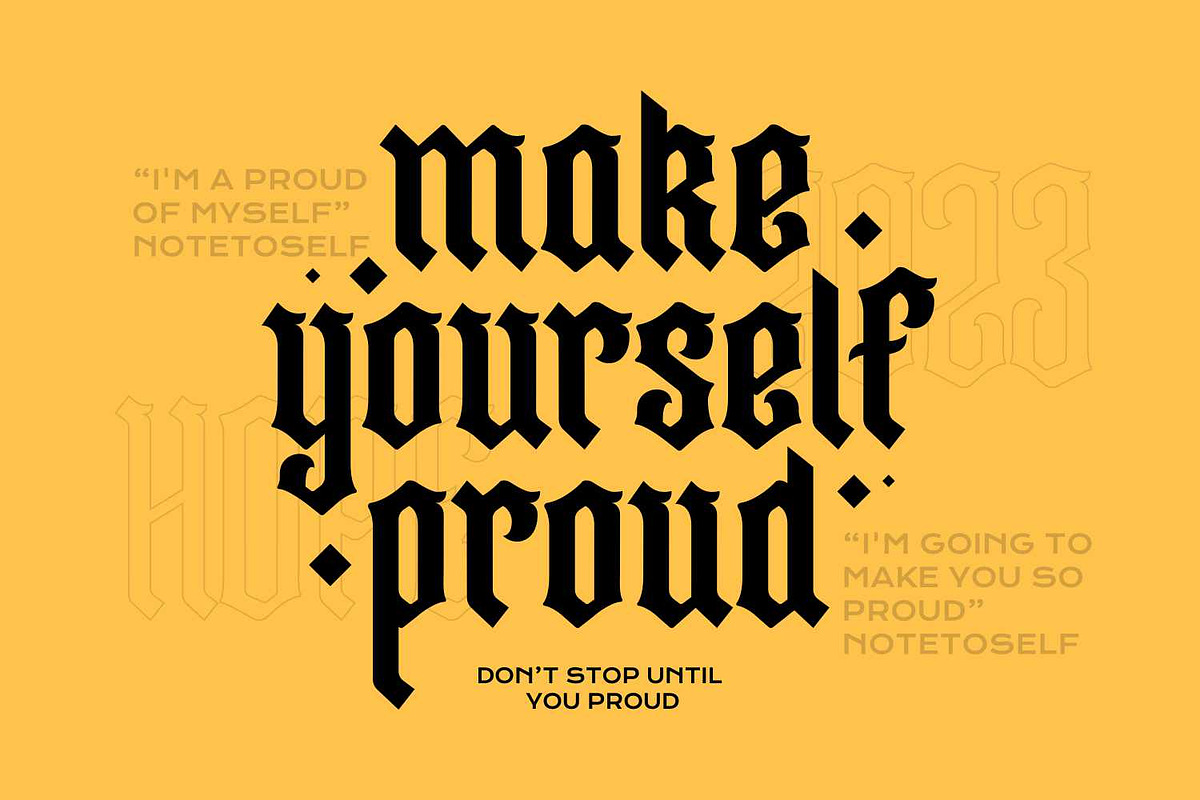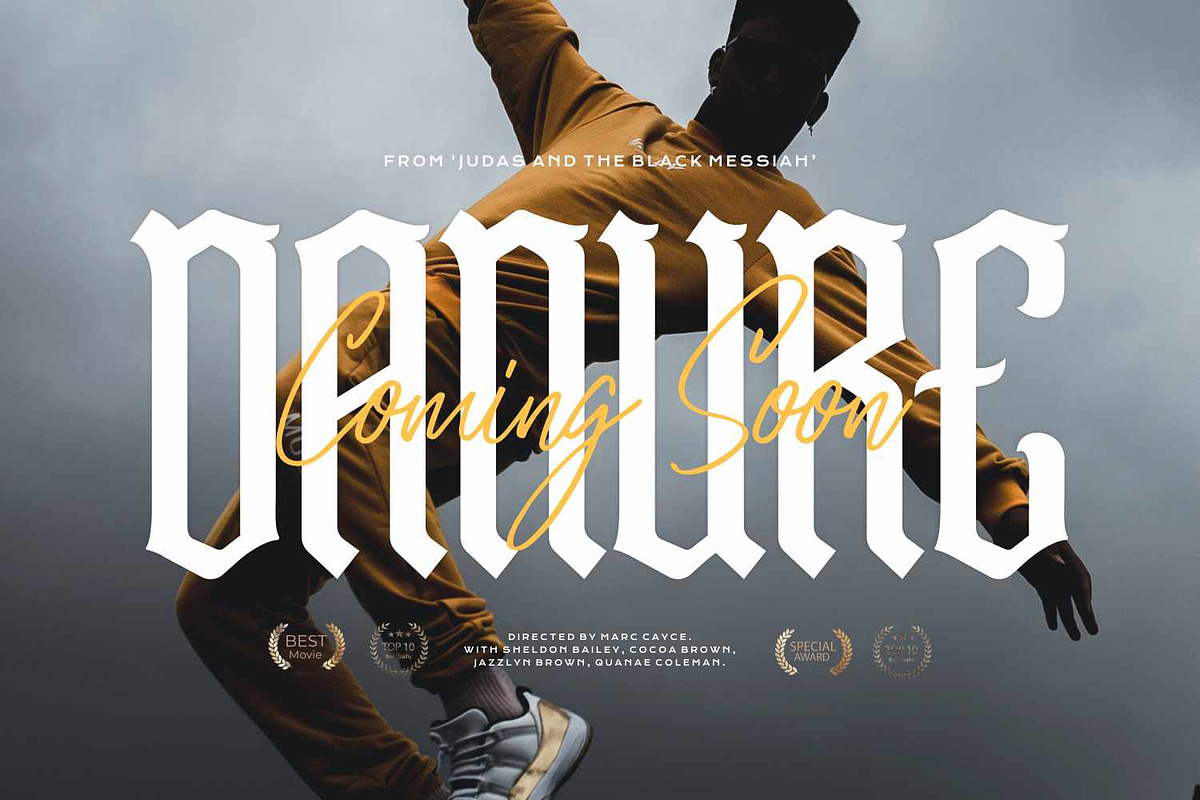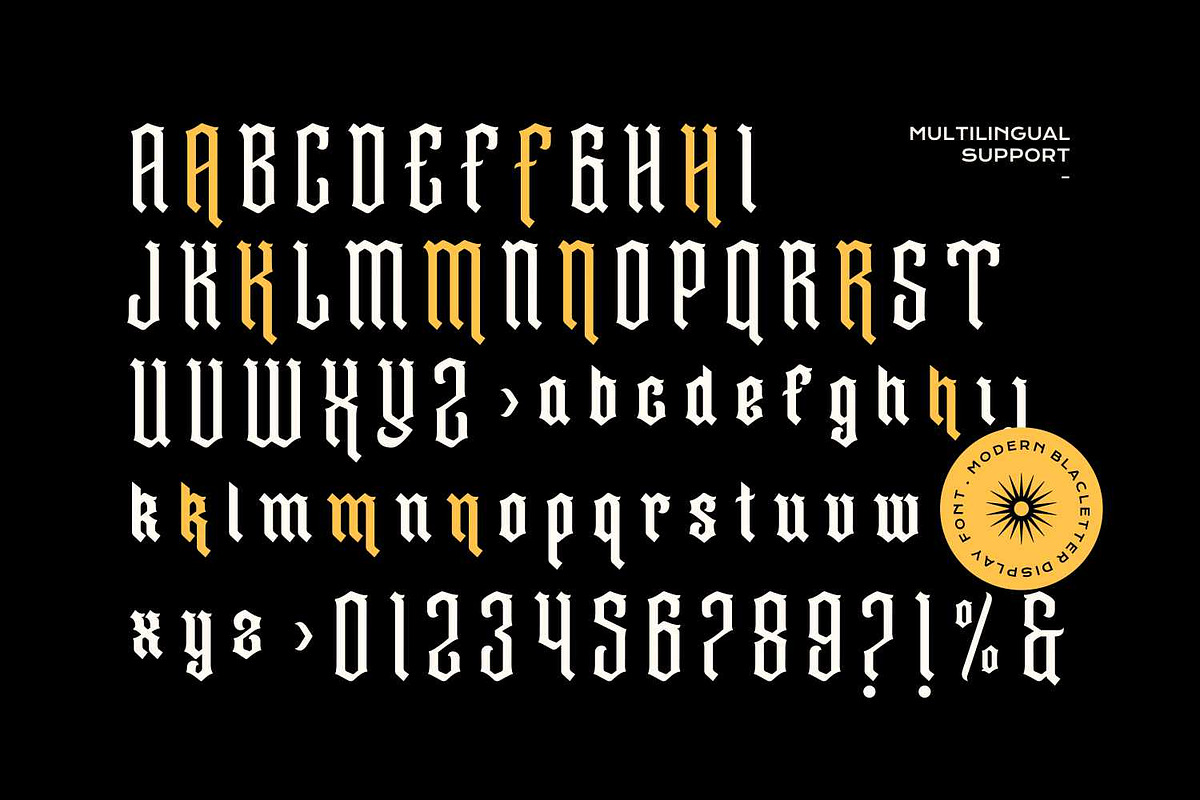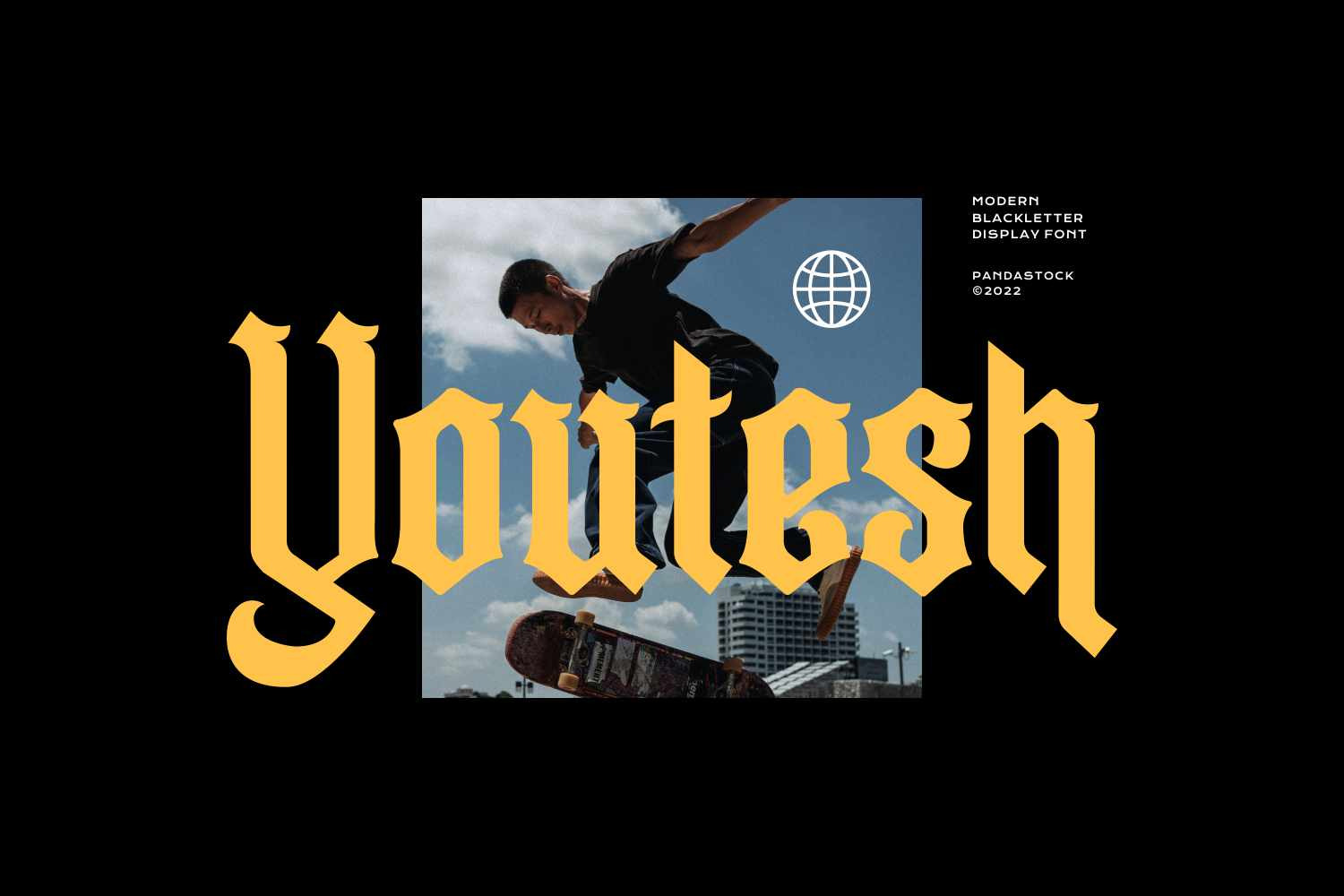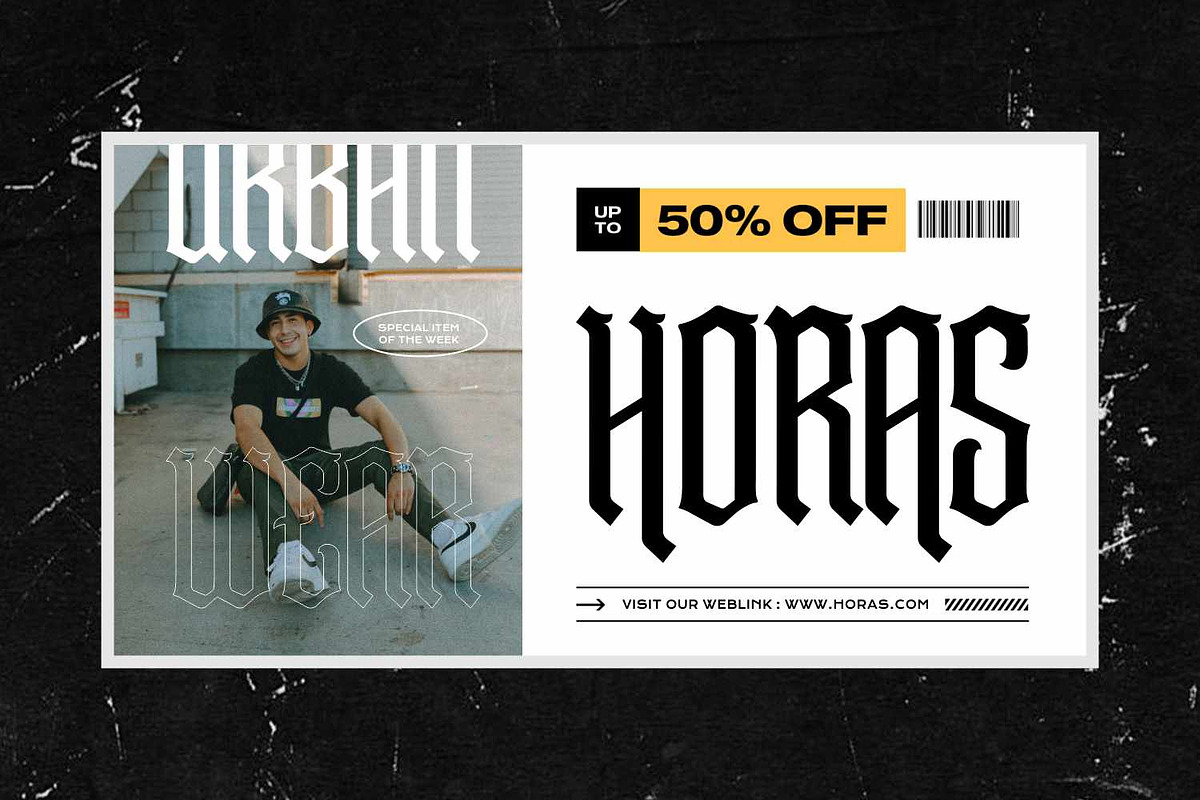
Youtesh - Blackletter Style Font
Youtesh is a modern take on the traditional blackletter style, merging classic gothic aesthetics with a contemporary edge. This font features tall, narrow letterforms with sharply defined angles and pronounced vertical strokes, typical of blackletter, but with a clean and polished finish that makes it suitable for today's design needs.
Perfect for branding, headlines, album covers, posters, metal band logos, merchandise, clothing, apparel, branding, and any design aiming to evoke a sense of historical grandeur fused with modern sophistication, this font stands out by balancing vintage charm with a fresh, bold attitude. Its intricate details and sharp edges make it especially fitting for creative fields like fashion, music, and cultural projects that want to convey strength, identity, and artistic flair.